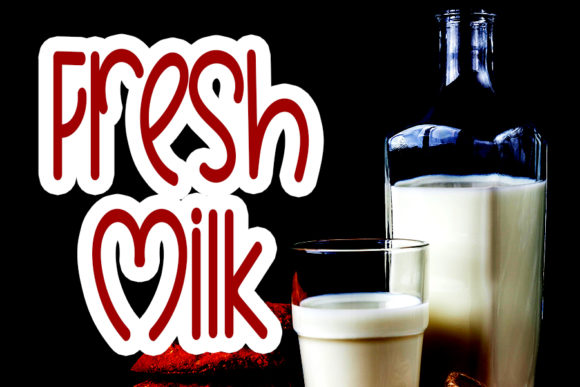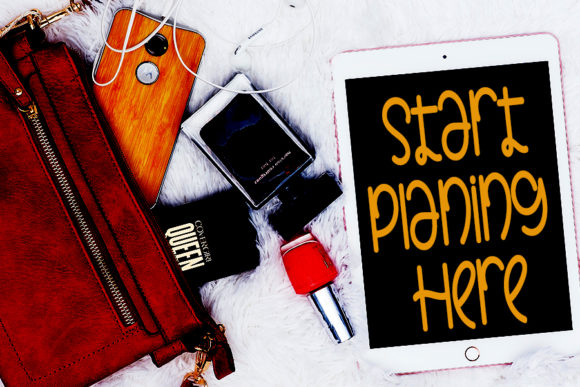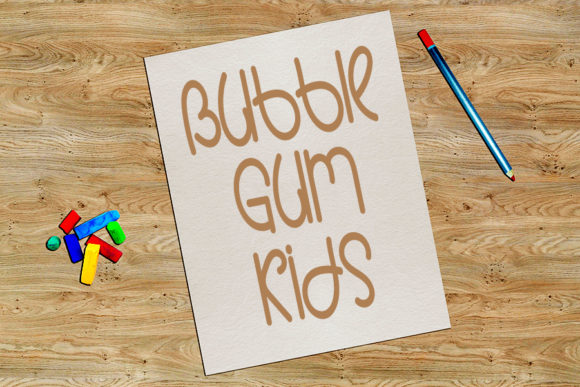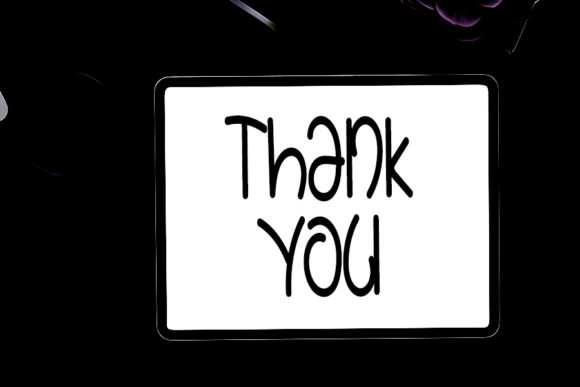
Crafting Font: The Perfect Handwritten Font for Your Creative Projects
Crafting is a delightful, quirky, and bouncy handwritten font that has captured the hearts of designers and crafters alike. Its unique charm and character make it an ideal choice for creating a wide range of branding, product packaging, invitations, quotes, t-shirts, labels, posters, logos, and more. In this article, we’ll dive into the world of Crafting Font and explore its features, benefits, and uses.
What is Crafting Font?
Crafting Font is a carefully crafted handwritten font that exudes a sense of playfulness and whimsy. Its letters are designed to resemble handwriting, with subtle imperfections and variations that give it a personal touch. The font is perfect for adding a touch of warmth and personality to your designs, making them stand out from the crowd.
Key Features of Crafting Font
- Cute and Quirky: Crafting Font is designed to be fun and playful, making it perfect for projects that require a touch of whimsy.
- Bouncy and Energetic: The font’s bouncy and energetic feel makes it ideal for designs that need to convey a sense of excitement and enthusiasm.
- Handwritten: Crafting Font is a handwritten font that mimics the imperfections and variations of human handwriting, giving it a unique and personal touch.
- Versatile: The font is suitable for a wide range of projects, from branding and packaging to invitations and posters.
Benefits of Using Crafting Font
Using Crafting Font in your designs offers several benefits, including:
- Unique and Eye-catching: Crafting Font helps your designs stand out from the crowd with its unique and eye-catching style.
- Emotional Connection: The font’s handwritten feel creates an emotional connection with your audience, making your designs more relatable and engaging.
- Flexibility: Crafting Font is versatile and can be used in a variety of contexts, from digital designs to print materials.
- Easy to Read: Despite its playful nature, Crafting Font is easy to read, making it perfect for designs that require a clear and legible font.
Use Cases for Crafting Font
Crafting Font is suitable for a wide range of projects, including:
- Branding: Use Crafting Font to create unique and memorable brand identities that stand out from the competition.
- Product Packaging: Add a touch of personality to your product packaging with Crafting Font, making it more eye-catching and appealing.
- Invitations: Create beautiful and unique invitations for special occasions, such as weddings, birthdays, and baby showers.
- Quotes and Posters: Use Crafting Font to create inspiring and motivational quotes, as well as eye-catching posters for events and promotions.
- T-shirts and Merchandise: Design unique and stylish t-shirts, mugs, and other merchandise with Crafting Font.
Tips for Using Crafting Font
Here are some tips for getting the most out of Crafting Font:
- Experiment with Colors: Try pairing Crafting Font with different colors to create unique and eye-catching combinations.
- Mix and Match: Combine Crafting Font with other fonts to create interesting and dynamic typography.
- Pay Attention to Spacing: Make sure to adjust the spacing between letters and words to create a clear and legible design.
- Use it Sparingly: Use Crafting Font sparingly to create emphasis and add visual interest to your designs.
Crafting Font is a delightful and versatile handwritten font that is perfect for designers and crafters looking to add a touch of personality to their projects. Its unique charm, flexibility, and ease of use make it an ideal choice for a wide range of designs, from branding and packaging to invitations and posters. With its bouncy and energetic feel, Crafting Font is sure to bring a smile to your audience’s faces and make your designs stand out from the crowd.